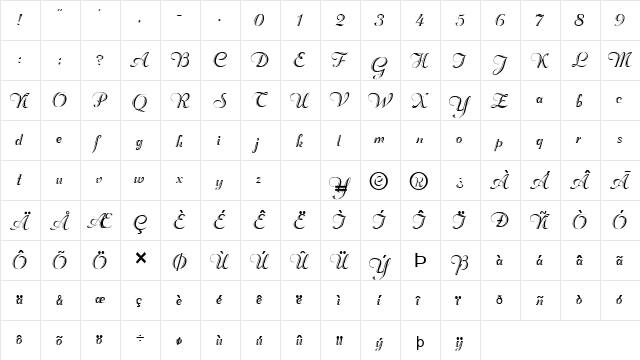
InviteEngraved Normal
Design Context for InviteEngraved Typeface
InviteEngraved is built around its visual character rather than neutral utility — its distinctive forms are designed to make an impression at display sizes.
Font Pairing: Pair with a clean neutral sans-serif for body copy to let InviteEngraved's character lead without overwhelming the composition.
Pro Tip: Use InviteEngraved exclusively at display sizes — it was designed to be seen, not read at length. Let a neutral companion handle body copy.